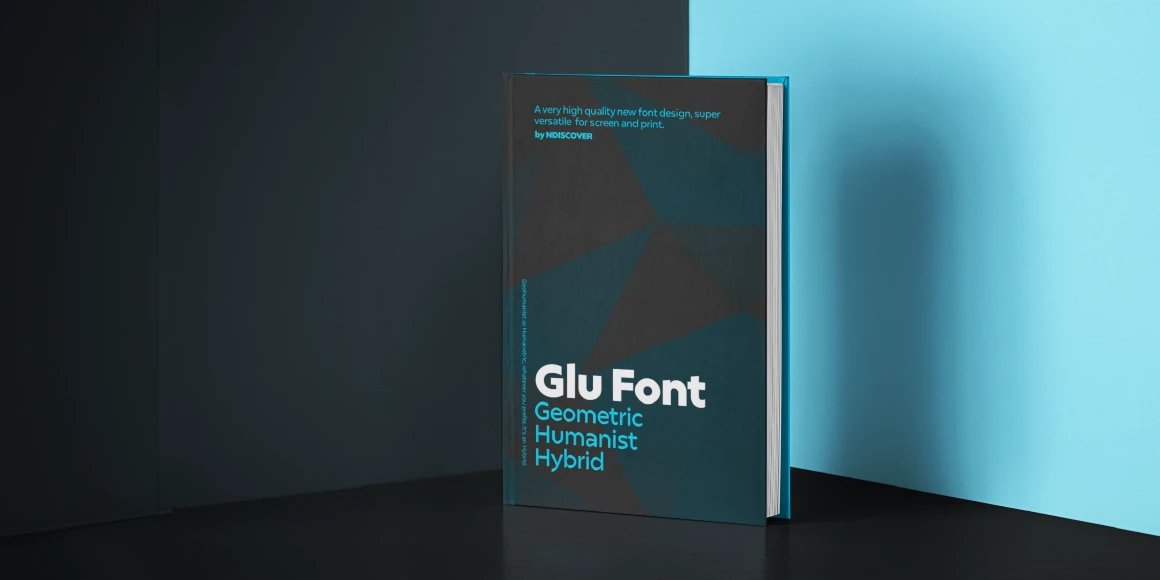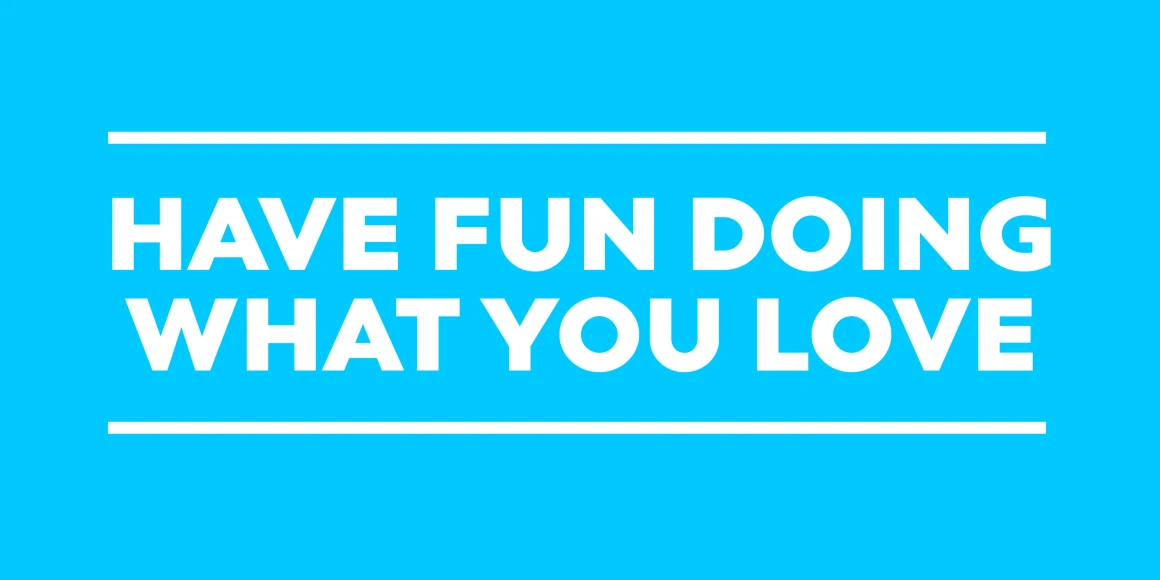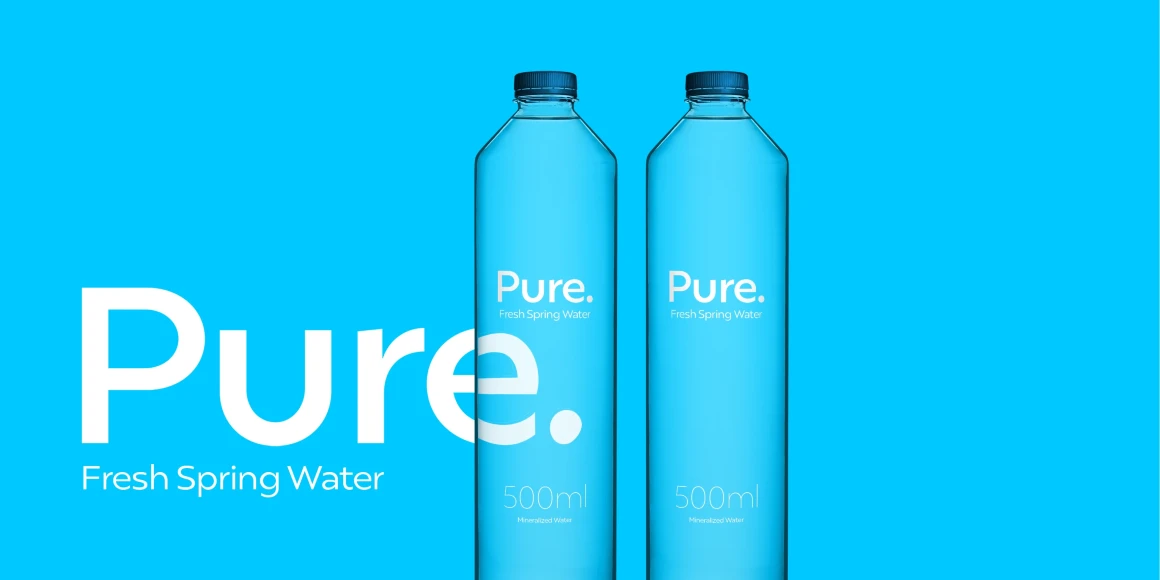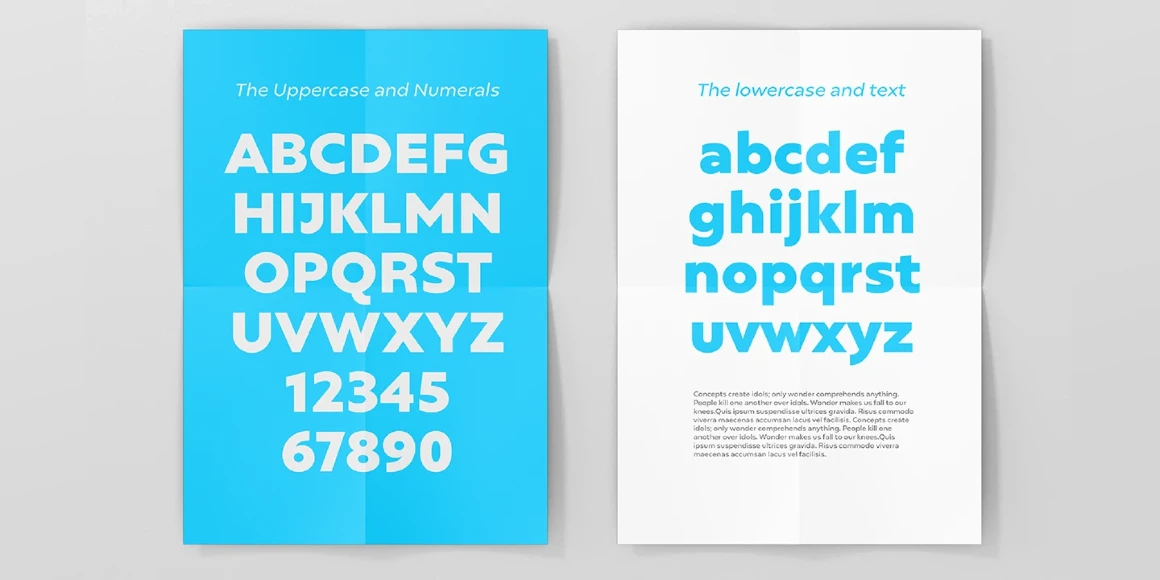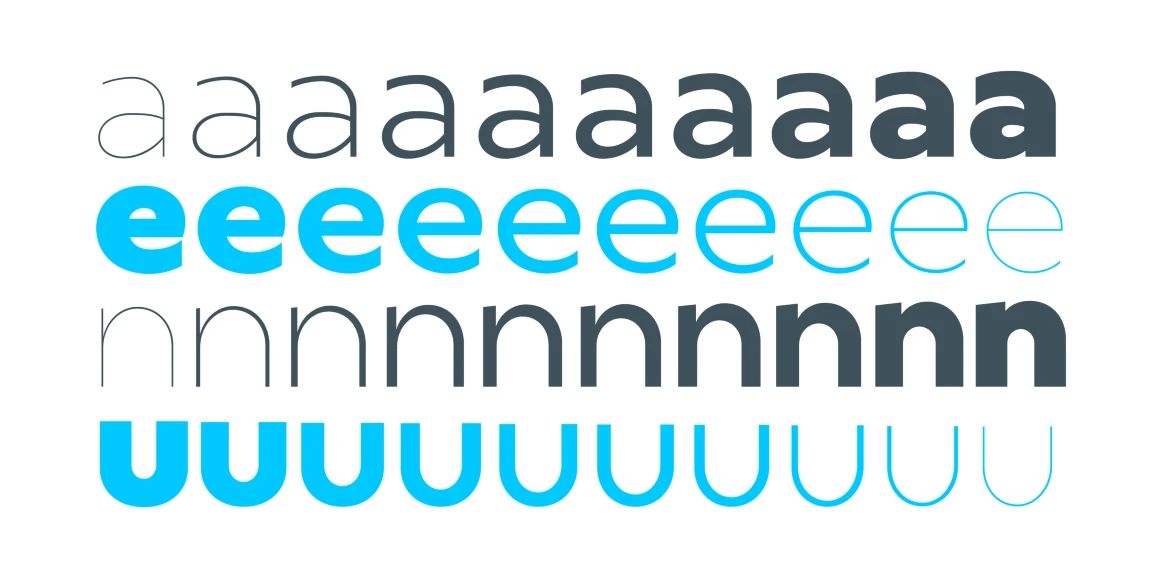
Gluy
By Natanael Gama
Gluy is geometric humanist hybrid. It blends the two categories into one design. Mixing geometric rational shapes with a touch of organic calligraphic forms. Comprises a total of 20 styles and supports most Latin languages and Cyrillic. Ideal for branding but very versatile. It can be used in many contexts from print to web. Designed by Natanael Gama, Gluy is a sans serif font family. This typeface has twenty styles and was published by Ndiscover.